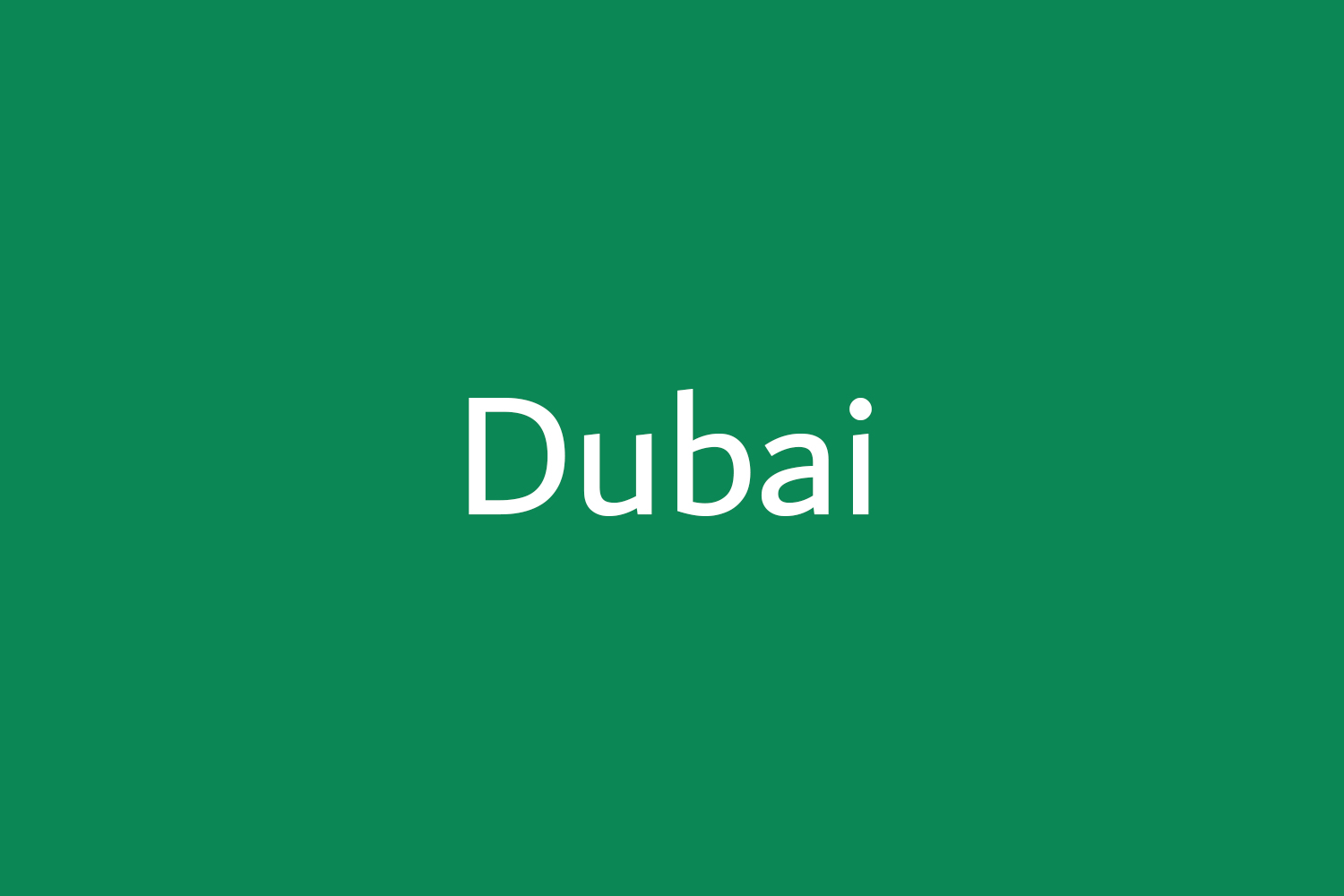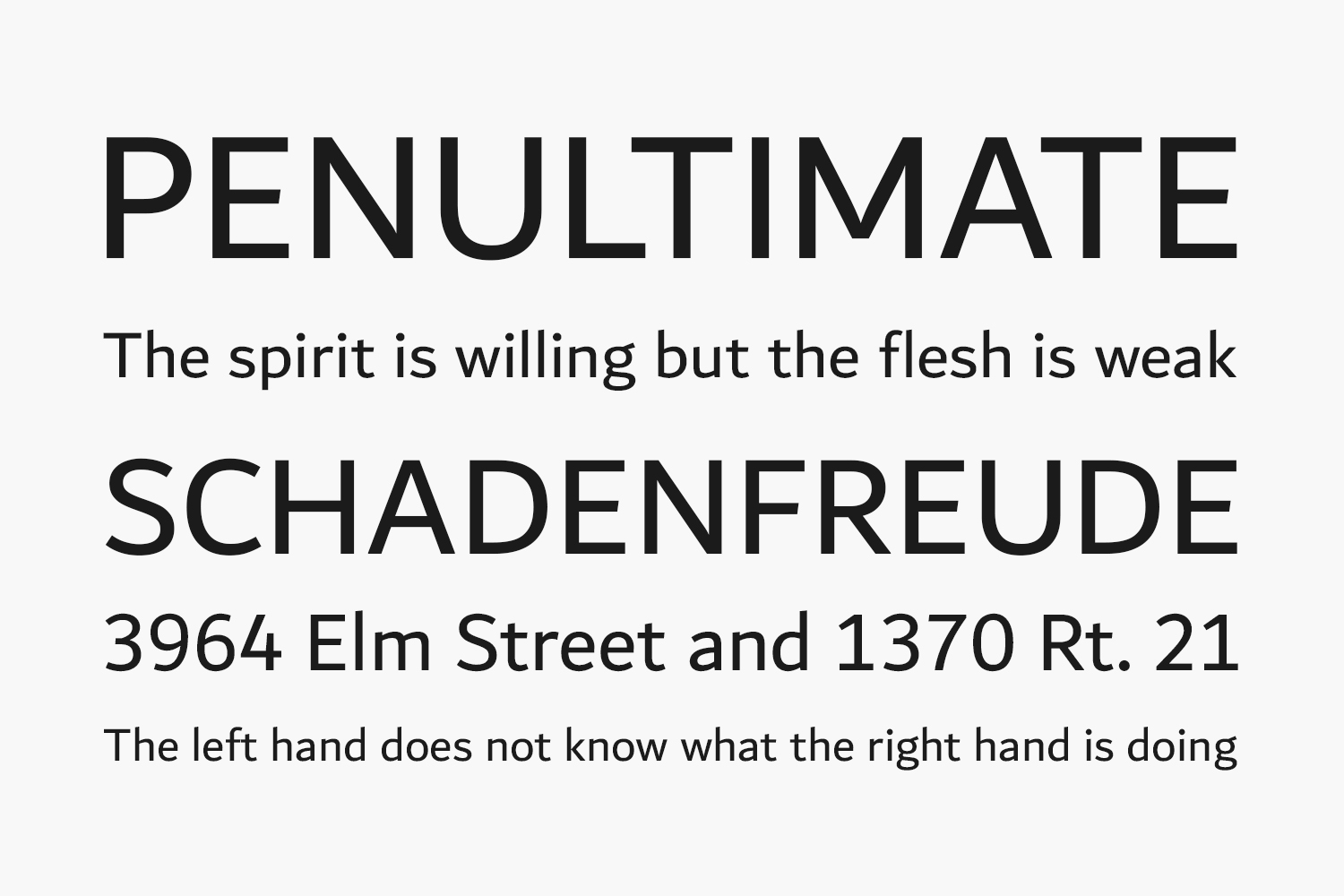
Expression is the way everyone shares their thoughts, ideas, and emotions. Writing is a form of expressing oneself and Dubai is giving the world a new tool to communicate with. The Dubai Font. Designed to unite the world through the power of expression.
Dubai Free Font Family is a project commissioned by His Highness, Sheikh Hamdan, and launched by The Executive Council of Dubai in partnership with Microsoft. The font reflects modernity and is inspired by the city. With a font family of 4 weights, it was designed to create harmony between Latin and Arabic. The very form of Dubai Font celebrates the union of heritage and innovation, giving the world access to a new form of high-quality typography. This is the first time that a typeface, created specifically for a city, is integrated with Microsoft and is available for free to all users worldwide. The Dubai Font is more than just a font. It is an embodiment of a vision – one of promoting literacy, unity, and forward-thinking laced with tradition, carrying within it aspirations beyond its outlines. It is young, dynamic, and full of passion and energy.
This typeface is designed to ignore barriers and empowers everyone by offering a high-quality design that is optimized for reading on screen and free for use in design, office communication, and even embedding in applications. The font will reach over 85 million in 180 countries worldwide, thanks to Microsoft. The government of Dubai approached Microsoft with the idea of partnering on a new font family, ones that would not only be useful for Office customers, but one that would also fill gaps in the Office font set, and be used worldwide.
Self-expression is an art form. Through it, you share who you are, what you think and how you feel to the world. To do so you need a medium capable of capturing the nuances of everything you have to say. The Dubai Font does exactly that. It is a new global medium for self-expression. By celebrating the past and embracing the future, transcending all barriers, the Dubai Font is the voice of our brave new world. This font family is free for both personal and commercial purposes.